Fonts have feelings too! How type influences perception.
Yes, you heard that right. Fonts have feelings too!
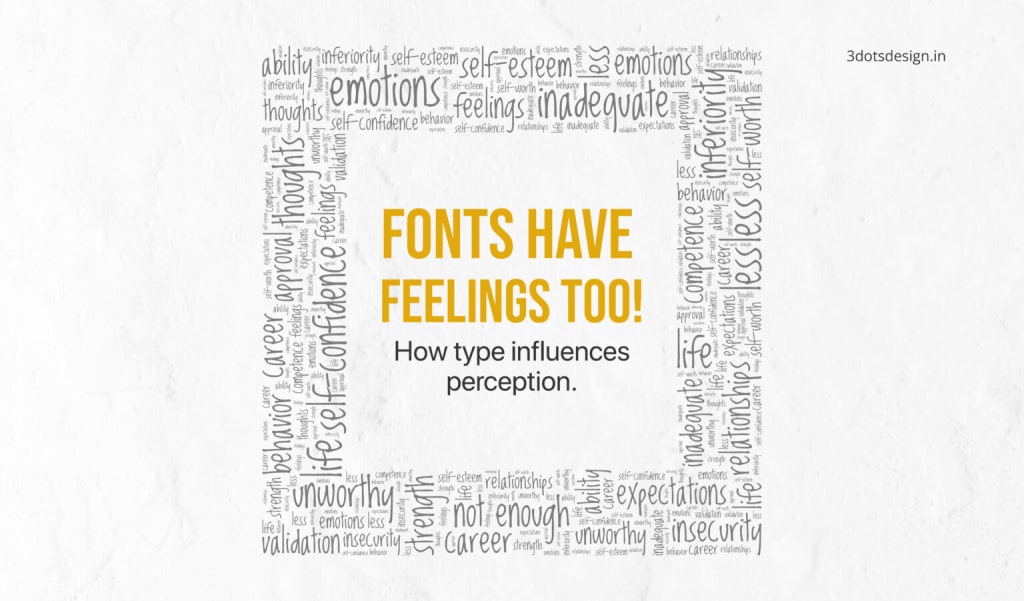
The typography we choose plays a huge role in giving human traits to non-human things. Like clothing shapes how people perceive us, fonts shape a brand’s personality. The way we dress ourselves influences impressions, likewise, the fonts we select “dress” our brand.
The subtle art of humanizing a brand isn’t just about the words themselves but how they’re presented. Ever wondered why luxury perfumes and beauty brands use elegant cursive fonts while sportswear favours bold, brash typefaces? Or why food brands lean toward red and yellow while hospitals often use blue? (Colour psychology is a whole other topic, but for now, let’s stick to fonts.)
Since humans respond emotionally to visual culture, designers can influence psychological reactions through thoughtful font choices. The psychology of typography is becoming an essential aspect of branding and marketing, once reserved for major corporations but now recognized by smaller businesses, too.
Research has shown that different fonts can have surprising effects on human perception, some can even alter the way food tastes or stir strong emotions, even to the point of sparking social movements. No wonder brands are seeking designers who understand the emotional impact of typography.
For designers and businesses alike, understanding font psychology is key to crafting a brand that’s not only memorable but also shapes how customers perceive and connect with it.
Why Typography Matters in Branding
Typography is an unspoken brand ambassador. As colours trigger emotions, fonts determine the tone of a brand’s personality. A high-end perfume brand would never employ a comic font, any more than a sports brand would employ dainty cursive.
The font choice determines how customers perceive and relate to a brand, often before they even notice the message. This is the reason why a branding agency in Pune or globally chooses fonts with great care so that they are in line with a brand’s values and the expectations of its audience.
Font Styles and Psychology: Making the Right Impression
Each font has its own personality and emotion.
Serif Fonts (e.g., Times New Roman, Garamond) – Suitable for law firms, banks, and high-end brands.
Sans-Serif Fonts (such as Helvetica, Arial, Montserrat) – Prevalent in use by tech startups, businesses, and new-age brands.
Script Fonts (such as Brush Script, Lobster) – Sought after in fashion brands, beauty products, and luxury lifestyle firms.
Display Fonts (such as Impact, Bebas Neue) – Ideal for grabber headlines, advertisements, and branding programs.
Just as brands fit into psychological categories based on their messaging and values, fonts also evoke different emotions that complement these font personalities into brand archetypes.
Understanding the Brand Archetype
The Brand Archetype Wheel divides brands into twelve personality types in line with their key motivations, which include safety, mastery, belonging, or innovation. Each of these archetypes is complemented by particular typography styles that visually represent the brand’s nature.
1. The Innocent (Google, Innocent Drinks)
Font Style: Readablesans-serif fonts (e.g., Google’s Product Sans).
Personality Traits: These fonts arewarm, inviting, and easy to read, which reinforces trust and simplicity.
2. The Sage (The New York Times, National Geographic)
Font Style: Strongly readable serif fonts (e.g., Times New Roman, Georgia).
Personality Traits: Intelligent, analytical, convey a sense of credibility and ageless knowledge.
3. The Explorer (NASA, Patagonia, The North Face)
Font Style: Strong sans-serif fonts (e.g., Montserrat, Futura).
Personality Traits: Curious, adventurous, independent. These fonts are bold and futuristic, representing exploration and the unknown.
4. The Ruler (Rolex, Mercedes-Benz, Louis Vuitton)
Font Style: Refined serif fonts (e.g., Garamond, Baskerville) or slim, clean sans-serifs.
Personality Traits: Powerful, controlling, sophisticated. Convey authority, elitism, and luxury, making them ideal for luxury brands.
5. The Outlaw (Red Bull, Harley-Davidson, Diesel)
Font Style: Heavy, all-caps, graffiti-style, or distressed fonts (e.g., Impact, Bebas Neue, Stencil).
Personality Traits: Revolutionary, bold, free-spirited. These fonts grab attention, defy the status quo, and produce an edgy look that appeals to risk-takers and rule-breakers.
6. The Magician (Apple, Disney, Tesla)
Font Style: Clean, minimalist sans-serif fonts (e.g., San Francisco font of Apple, custom script of Disney).
Personality Traits: Visionary, innovative, transformational.
7. The Hero (Under Armour, Nike, FedEx)
Font Style: Condensed, bold, athletic fonts (e.g., Impact, Oswald).
Personality Traits: Determined, strong, courageous. Sharp typefaces convey strength.
8. The Lover (Tiffany & Co., Chanel, Victoria’s Secret)
Font Style: Script fonts or elegant serifs (e.g., Baskerville, Didot).
Personality Traits: These fonts express sophistication, romance, and exclusivity.
Where brands compete for attention, the right typography can be a game-changer. Whether you’re launching a startup or refining your brand’s visual identity, investing in typography is no longer optional, it’s essential.